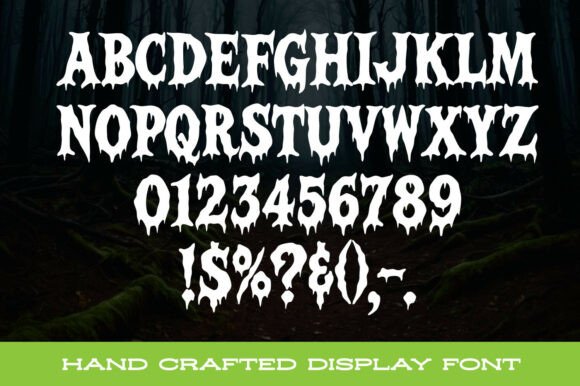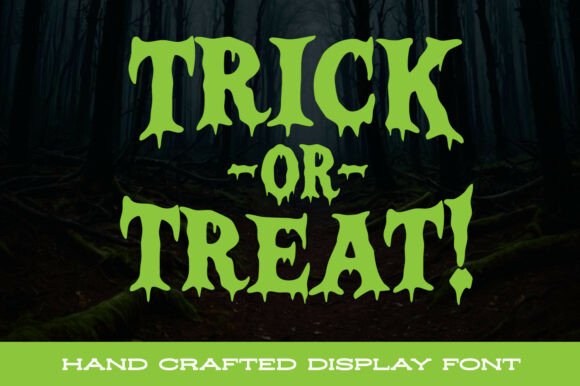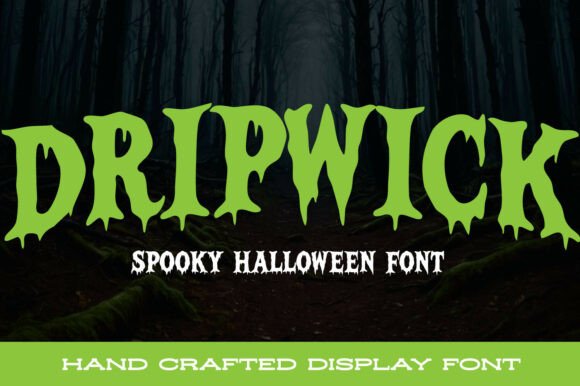
Dripwick Font: The Ultimate Whimsical Horror Movie Font
Are you a designer or crafter looking for a font that embodies the perfect blend of spooky and playful? Look no further than Dripwick, a whimsical horror movie font that is sure to add a touch of eerie charm to your designs. With its jagged curves, sinister serifs, and thick dripping strokes, Dripwick is the perfect choice for Halloween posters, haunted house flyers, chilling movie titles, and any design that needs a dash of creepy fun.
The Unique Characteristics of Dripwick Font
Dripwick font is a masterclass in design, with each character carefully crafted to evoke a sense of unease and foreboding. The jagged curves and sinister, curvy serifs give the font a sense of movement and fluidity, as if the letters are shifting and twisting on the page. The thick dripping strokes, meanwhile, add a sense of texture and depth, giving the impression of melting wax, haunted ink, or candle flames flickering in the dark.
The Balance of Spooky and Playful
One of the standout features of Dripwick font is its perfect balance of spooky and playful. While it’s certainly eerie and unsettling, it’s also strangely charming and whimsical. This makes it the perfect choice for designers who want to add a touch of horror to their designs without going too far. Whether you’re creating a Halloween poster or a haunted house flyer, Dripwick font is sure to add a dash of personality and flair.
Dripwick font is a dream come true for designers and crafters who love to work with unique and eye-catching fonts. Whether you’re creating invitations, posters, or social media graphics, Dripwick font is sure to add a touch of personality and style to your designs. And with its bold, black lettering, it’s perfect for designs that need to make a statement.
Ideas for Using Dripwick Font
So, how can you use Dripwick font in your designs? Here are a few ideas to get you started:
- Halloween Posters: Dripwick font is perfect for creating spooky and eye-catching Halloween posters. Use it to create bold and attention-grabbing headlines, or to add a touch of personality to your design.
- Haunted House Flyers: If you’re creating flyers for a haunted house or spooky attraction, Dripwick font is a great choice. It will add a touch of eerie charm to your design and help to set the tone for a spooky and unforgettable experience.
- Movie Titles: Dripwick font is also perfect for creating chilling movie titles. Use it to add a touch of horror and suspense to your design, or to create a bold and eye-catching headline.
- Social Media Graphics: If you’re creating social media graphics for Halloween or a spooky event, Dripwick font is a great choice. It will add a touch of personality and style to your design, and help to make your graphics stand out.
Tips for Working with Dripwick Font
Here are a few tips for working with Dripwick font:
- Experiment with Different Sizes: Dripwick font looks great in a variety of sizes, from bold and eye-catching headlines to smaller and more subtle text. Experiment with different sizes to see what works best for your design.
- Play with Color: Dripwick font looks great in a range of colors, from bold and bright to dark and muted. Experiment with different colors to see what works best for your design.
- Combine with Other Fonts: Dripwick font also looks great when combined with other fonts. Try pairing it with a bold and sans-serif font for a striking contrast.
| Font Name | Dripwick Font |
| Author | stompstock |
In conclusion, Dripwick font is a unique and eye-catching font that is perfect for designers and crafters who love to work with spooky and playful designs. With its jagged curves, sinister serifs, and thick dripping strokes, Dripwick font is sure to add a touch of eerie charm to your designs. Whether you’re creating Halloween posters, haunted house flyers, or chilling movie titles, Dripwick font is the perfect choice. So why not give it a try and see what kind of creepy and fun designs you can create?